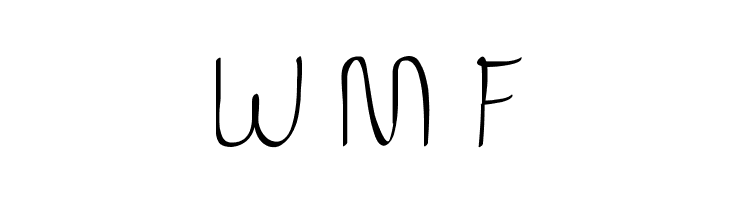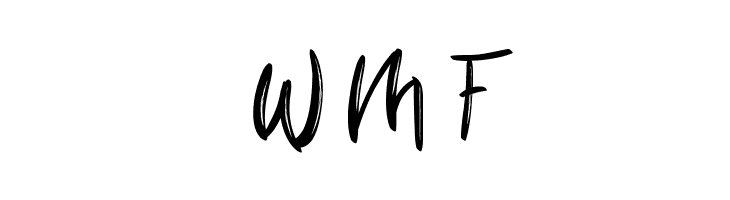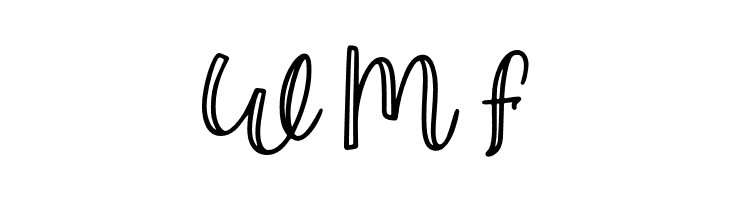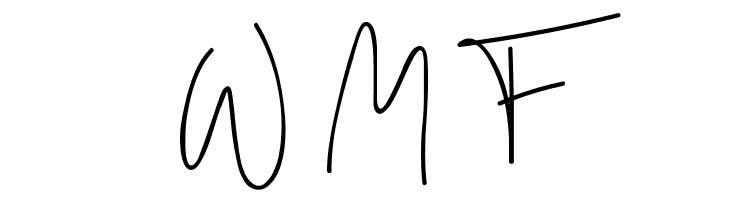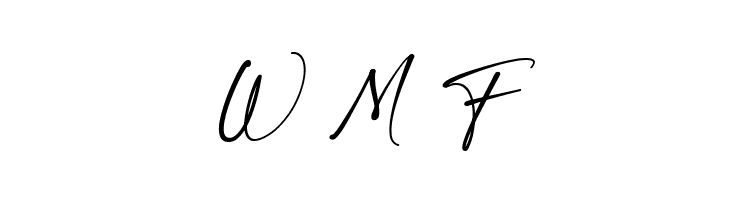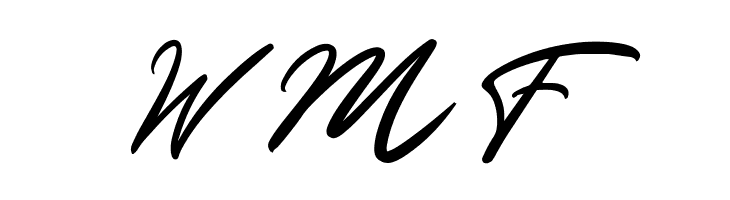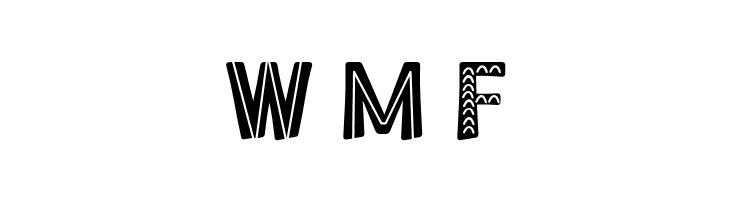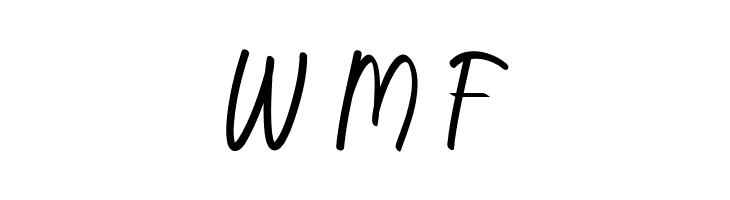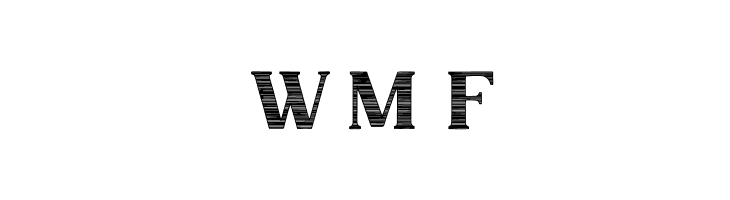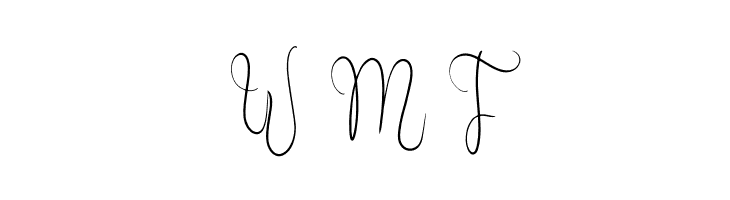
• Cervanttis
A lively handwritten font with dynamic strokes and a playful style.
• Cerys Everett Demo
A playful handwritten font with flowing, connected letterforms and a whimsical style.
• Cestany
Elegant cursive script with a handwritten feel.
• CestLaIsabelly
A lively and expressive handwritten font with fluid, connected strokes.
• CestLaIsabelly
A lively, cursive handwritten font with expressive, flowing strokes.
• CestLaIsabellyAlt
An elegant, flowing script font with intricate swirls and loops.
• CestLaIsabellyAlt
An elegant script font with intricate swashes and flowing lines.
• Cetlopist-Regular
A playful, decorative font with unique patterns in each character.
• Ceverland
A stylish and elegant script font with fluid, cursive letterforms.
• Ceylonia
A playful and flowing script font with elegant curves and smooth strokes.
• CF Kremzin Demo Regular
A bold, angular font with a modern and geometric style.
• Chainbold
A bold, modern script font with interconnected characters and a dynamic flow.
• Chainexbold
A bold, slanted font with thick strokes and a dynamic style.
• Chainlight
A modern, interconnected script font with a chain-like appearance.
• Chainregular
A modern, script-inspired font with smooth, flowing lines and a slightly condensed style.
• Chairmate Demo
A bold, expressive handwritten font with a lively, energetic style.
• Chakie
• Chalifor Dalsatic VEKTOR
A dynamic and fluid script font with elegant, flowing letterforms.
• Chalisha Regular
An elegant, flowing script font with a natural handwriting style.
• Chalisha-Regular
An elegant, flowing script font with a natural handwriting style.
• Chalista
A dynamic and flowing script font with elegant, fluid letterforms.